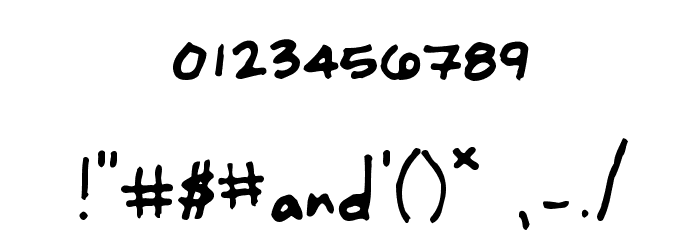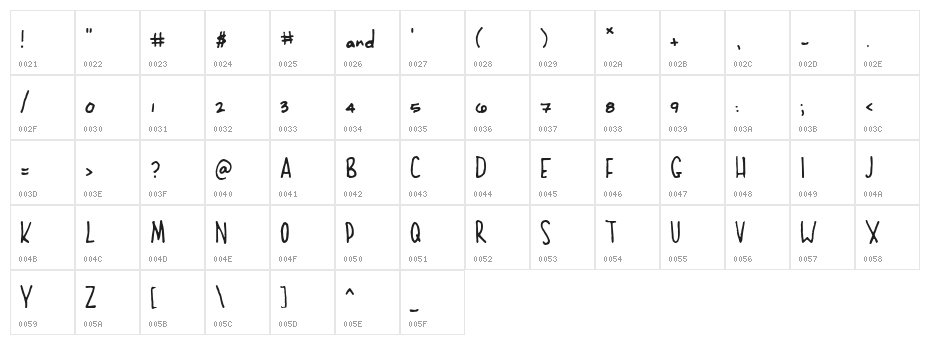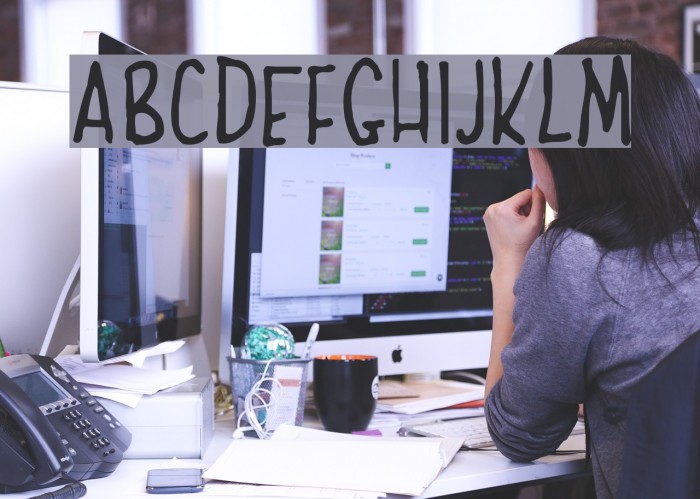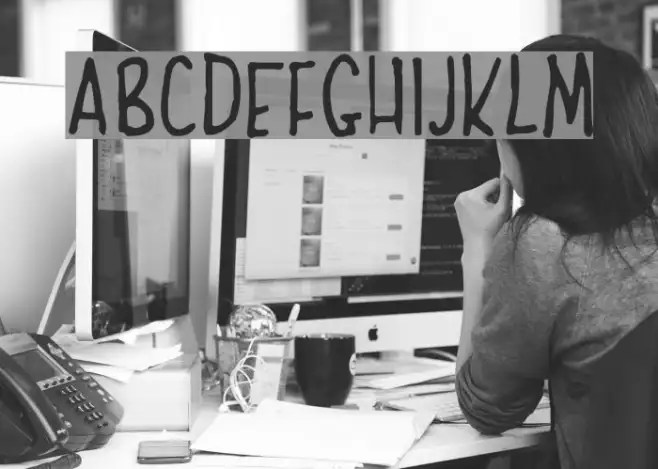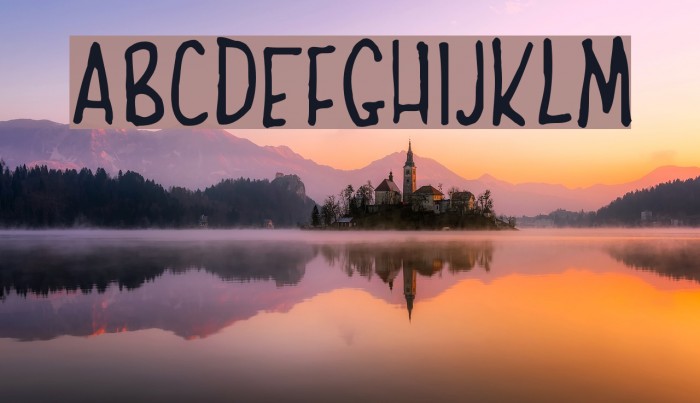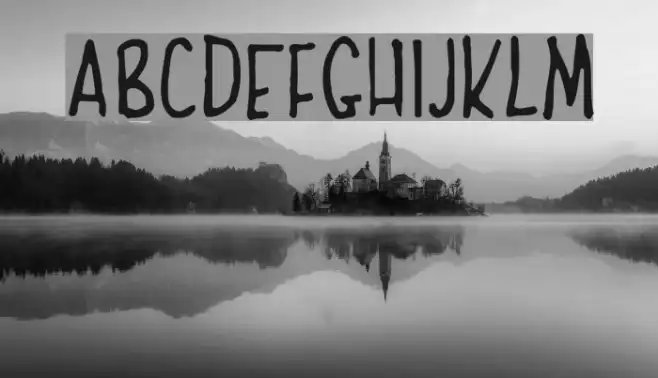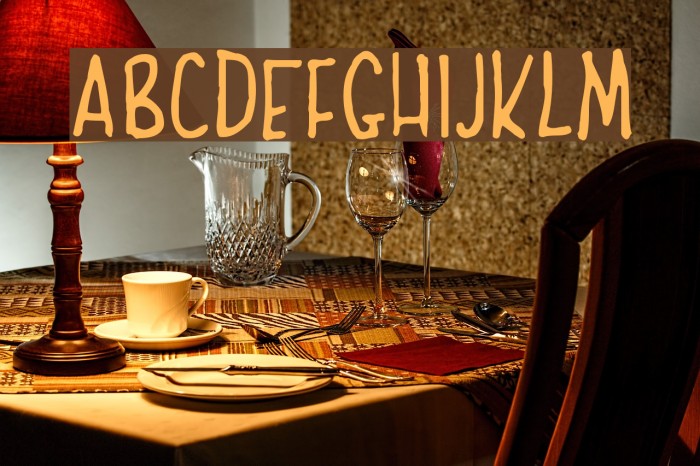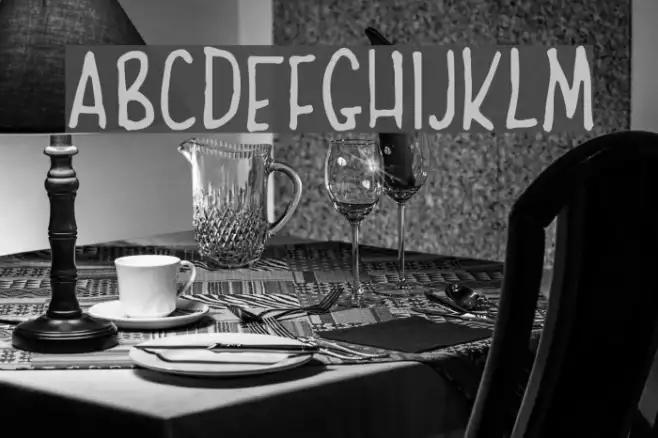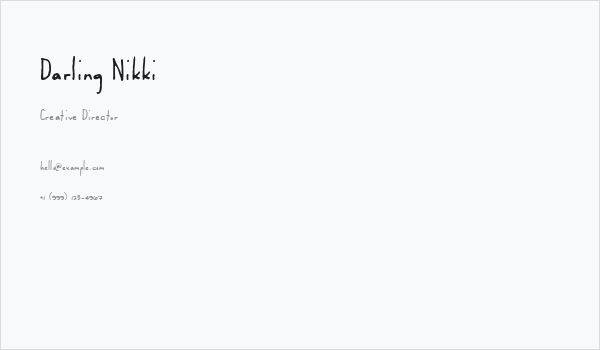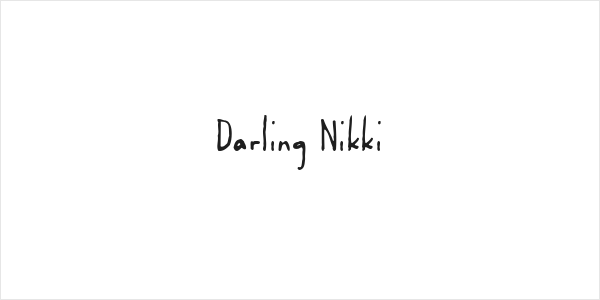
Darling Nikki Font
Darling Nikki Description
This font exudes a playful and casual handwritten style, characterized by its irregular and slightly wobbly strokes that give it a charming, personal touch. The uppercase letters are bold and slightly uneven, while the lowercase letters maintain a consistent flow with a more relaxed appearance. Numbers and special characters follow the same informal style, making the font versatile for creative projects. The overall look is approachable and friendly, perfect for conveying a sense of warmth and individuality.